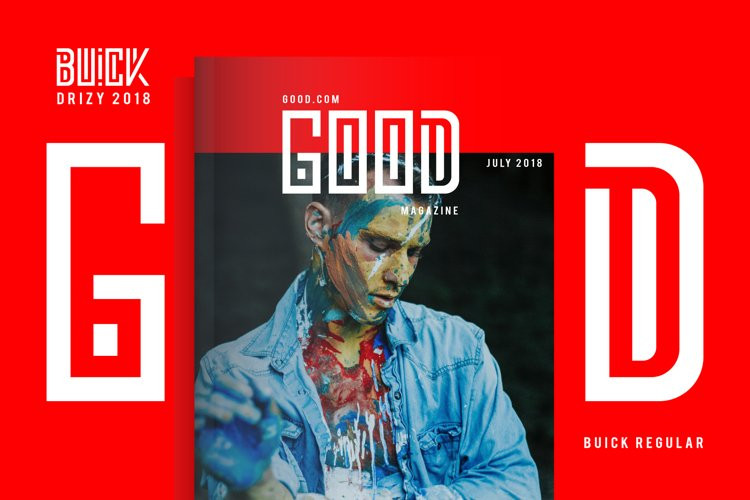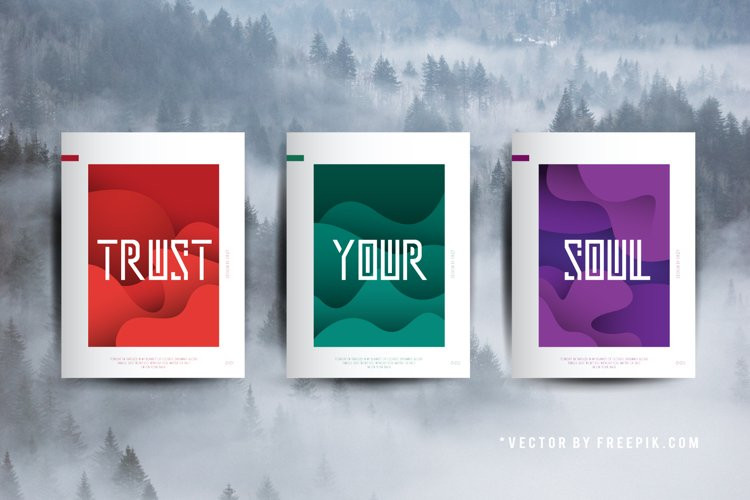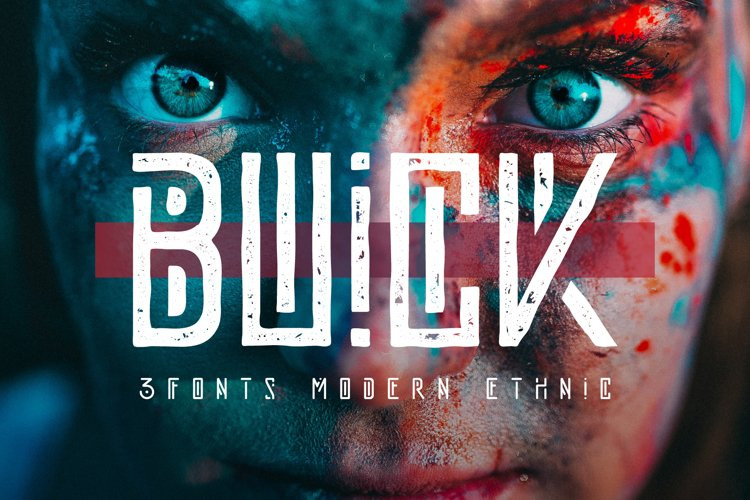
Buick Font
Buick FontEthnic, Futuristic and Bold, Buick is a modern unique font family. Strong uppercase. The geometric,shows assertiveness in the form of fonts, accompanied by uniqueness in its form. Very suitable for inclusion in sci fi, ethnic & modern themes.